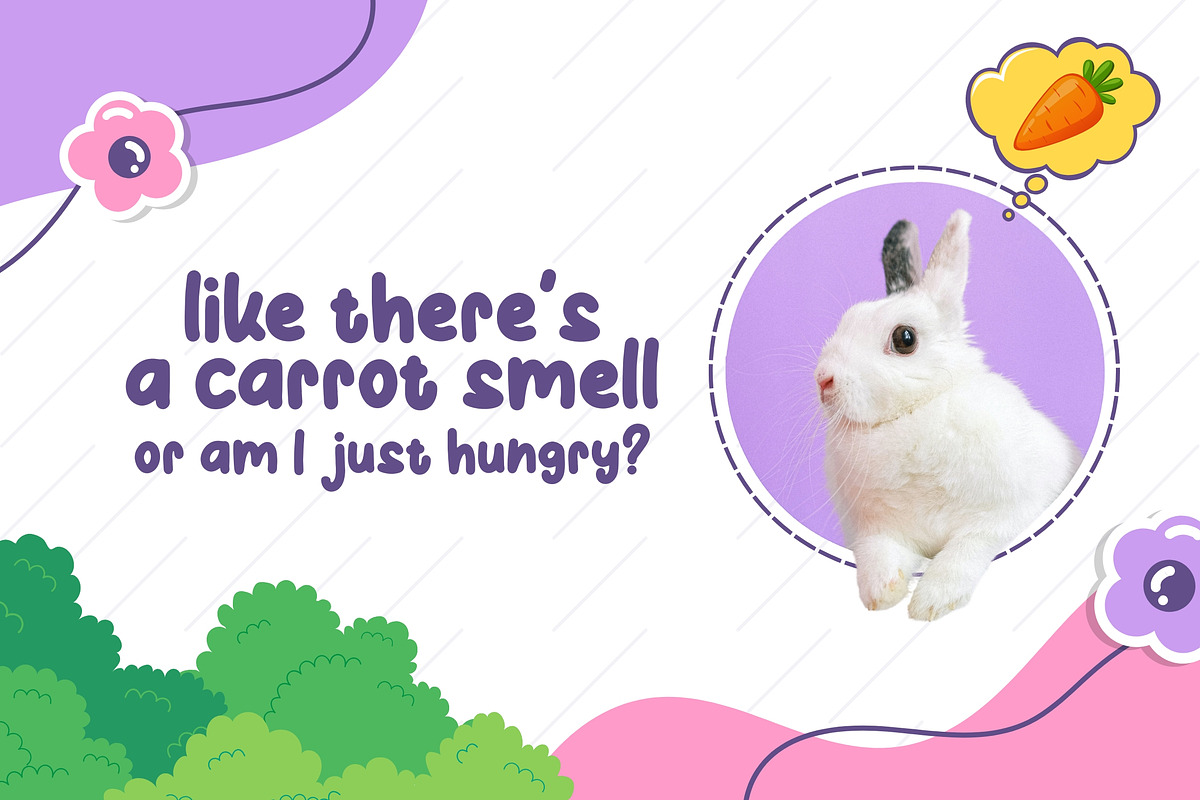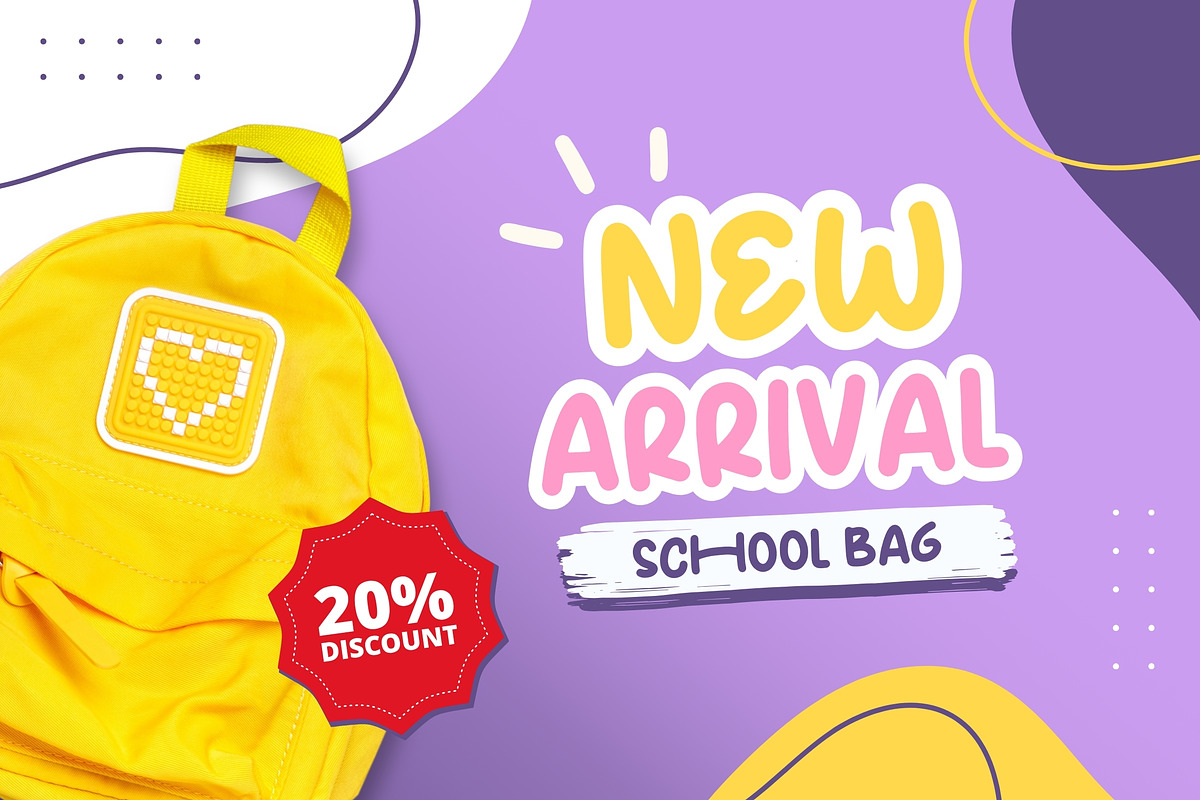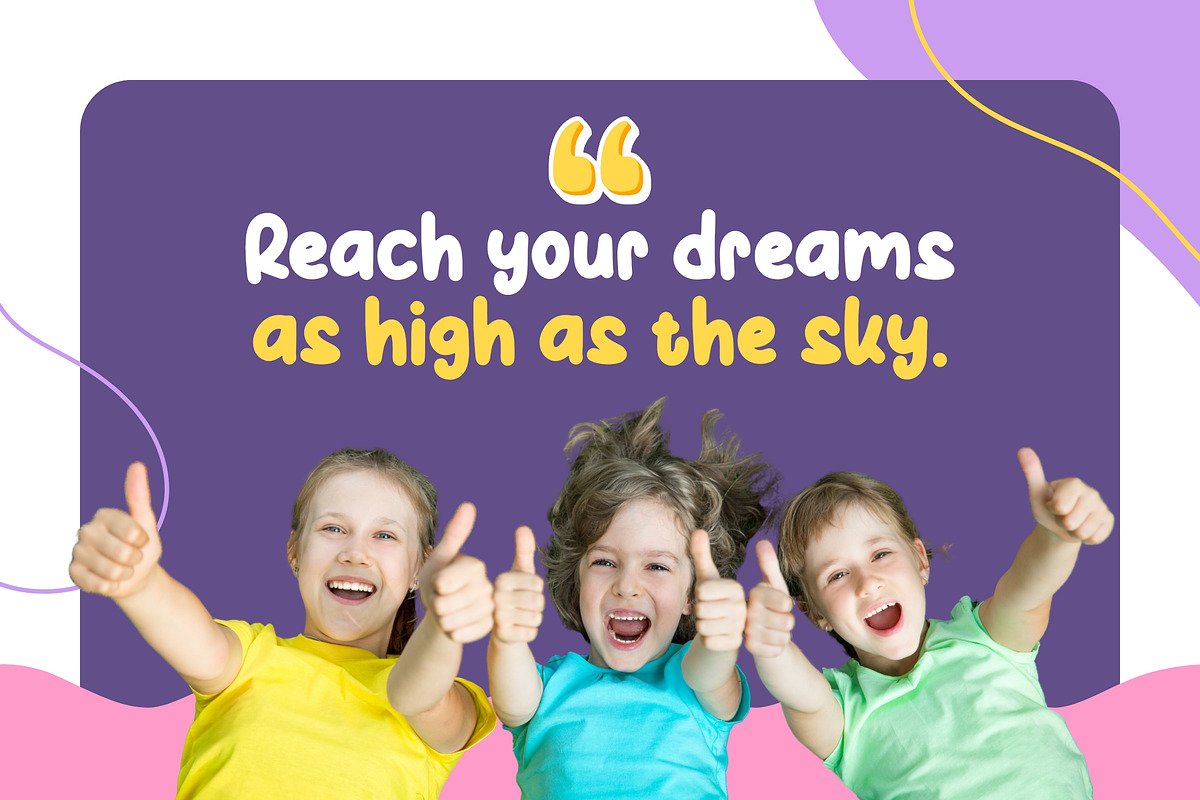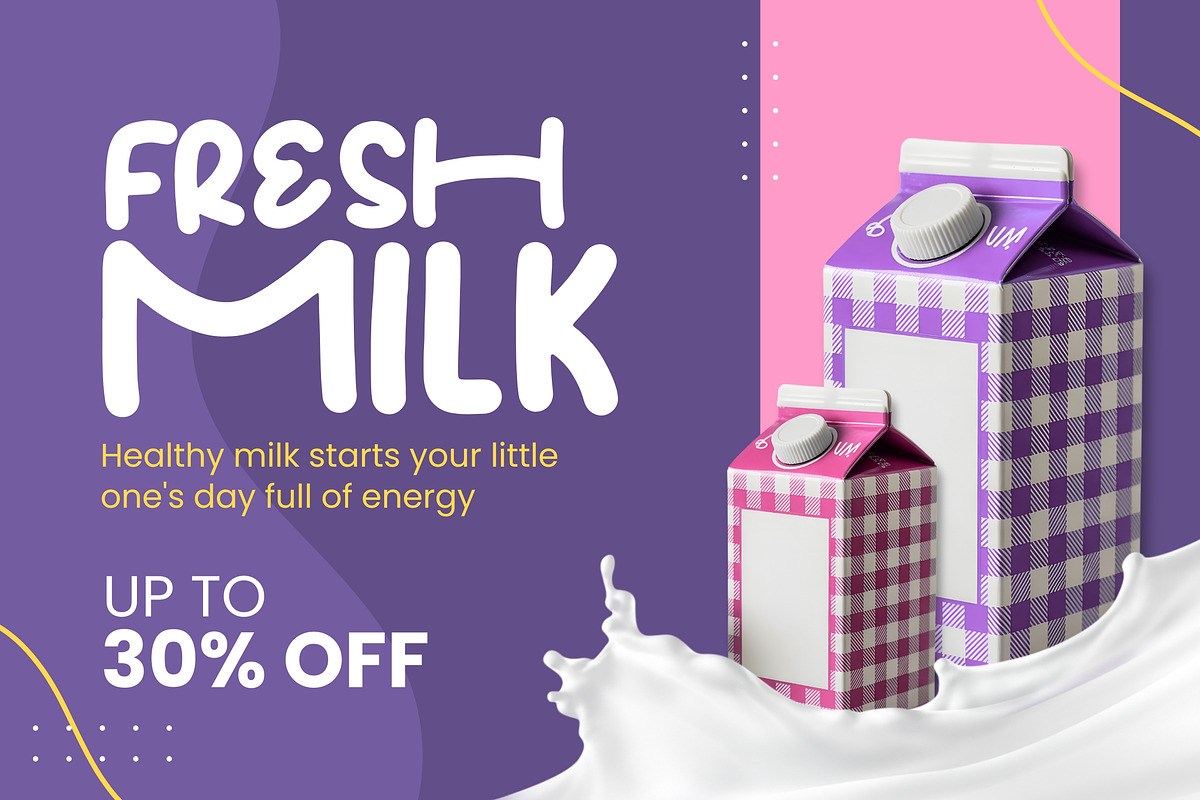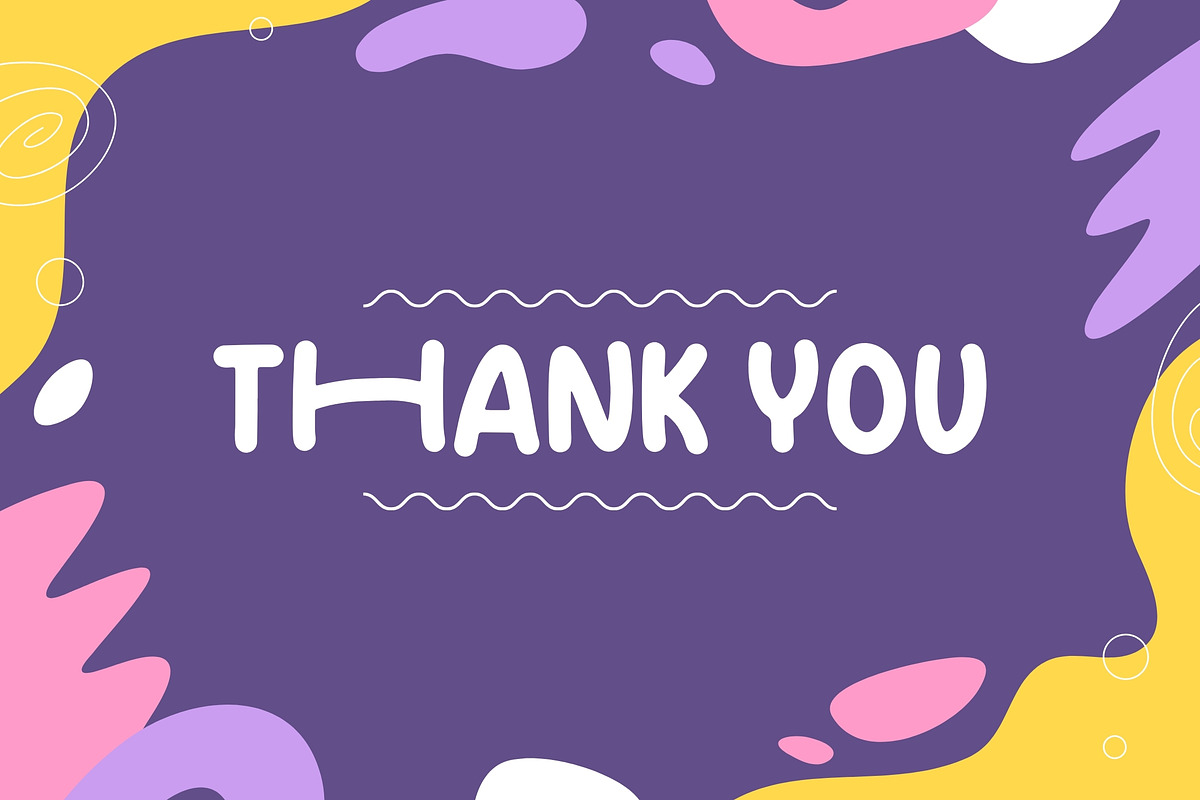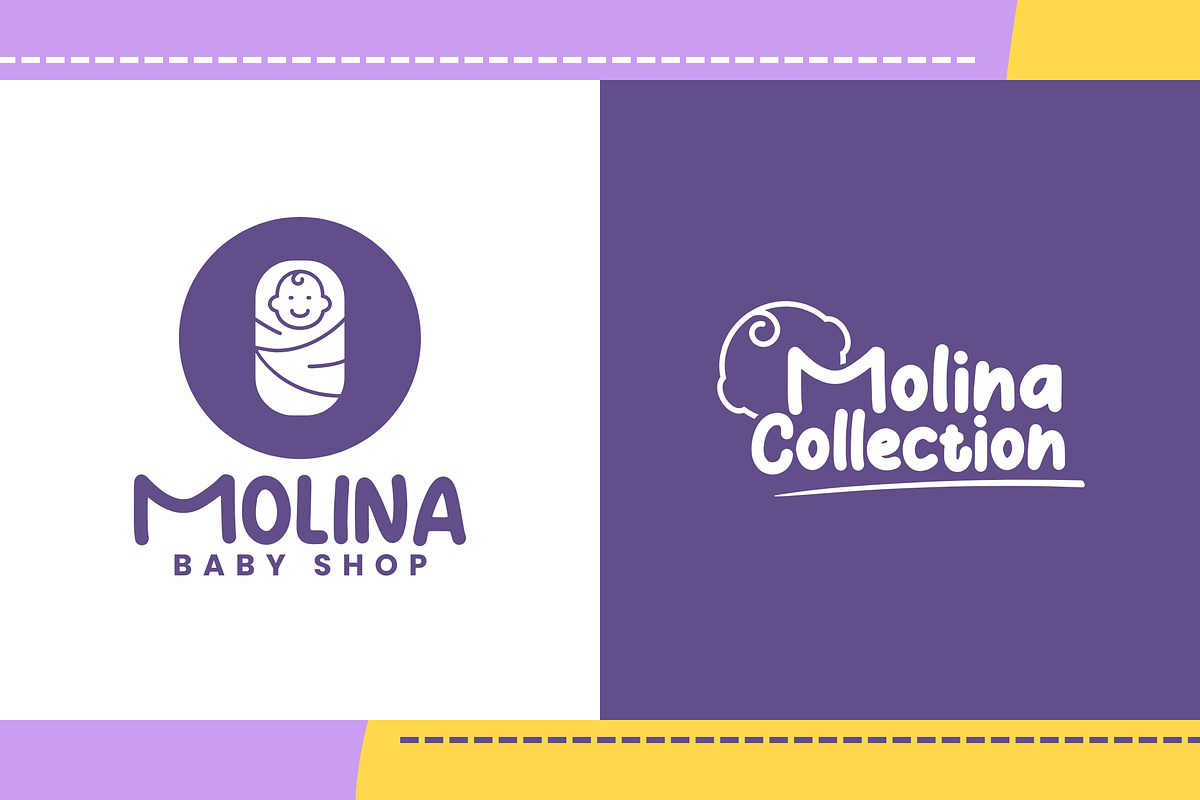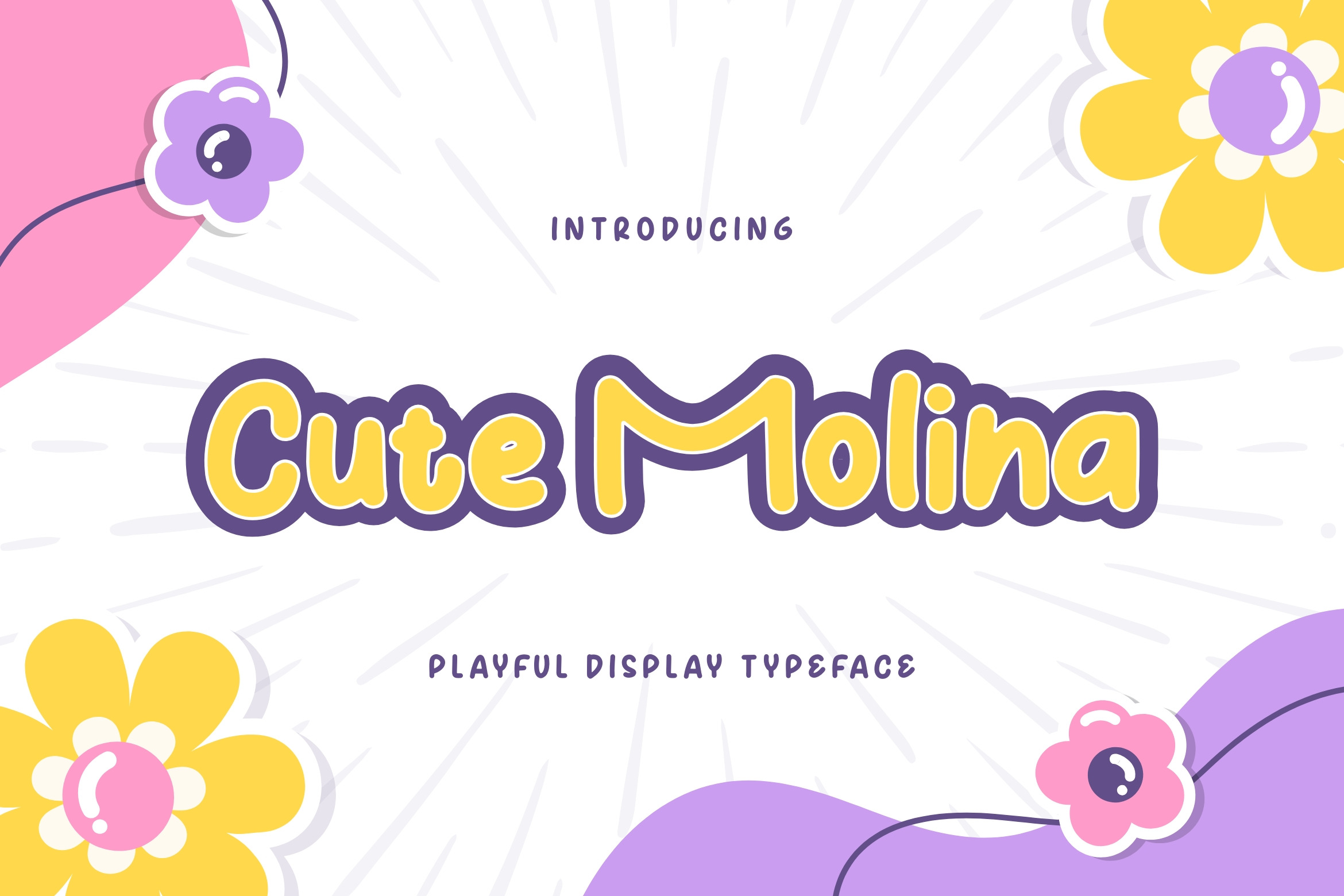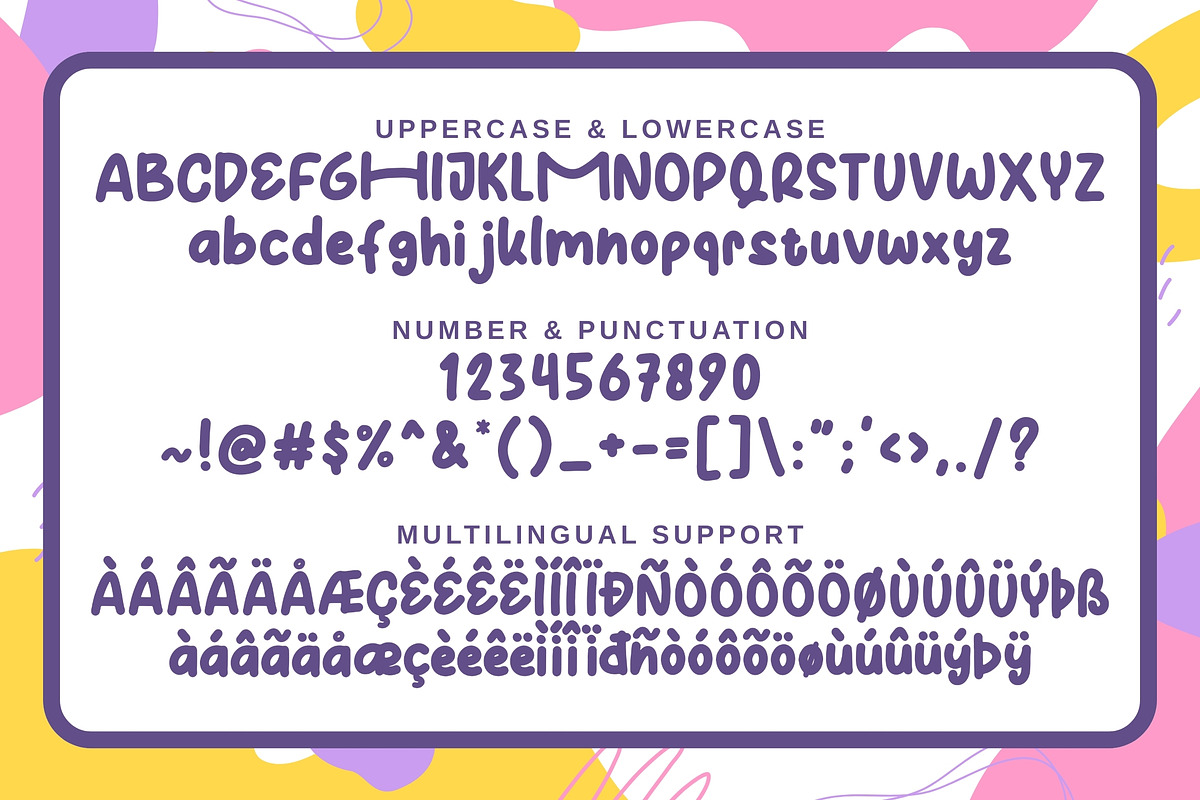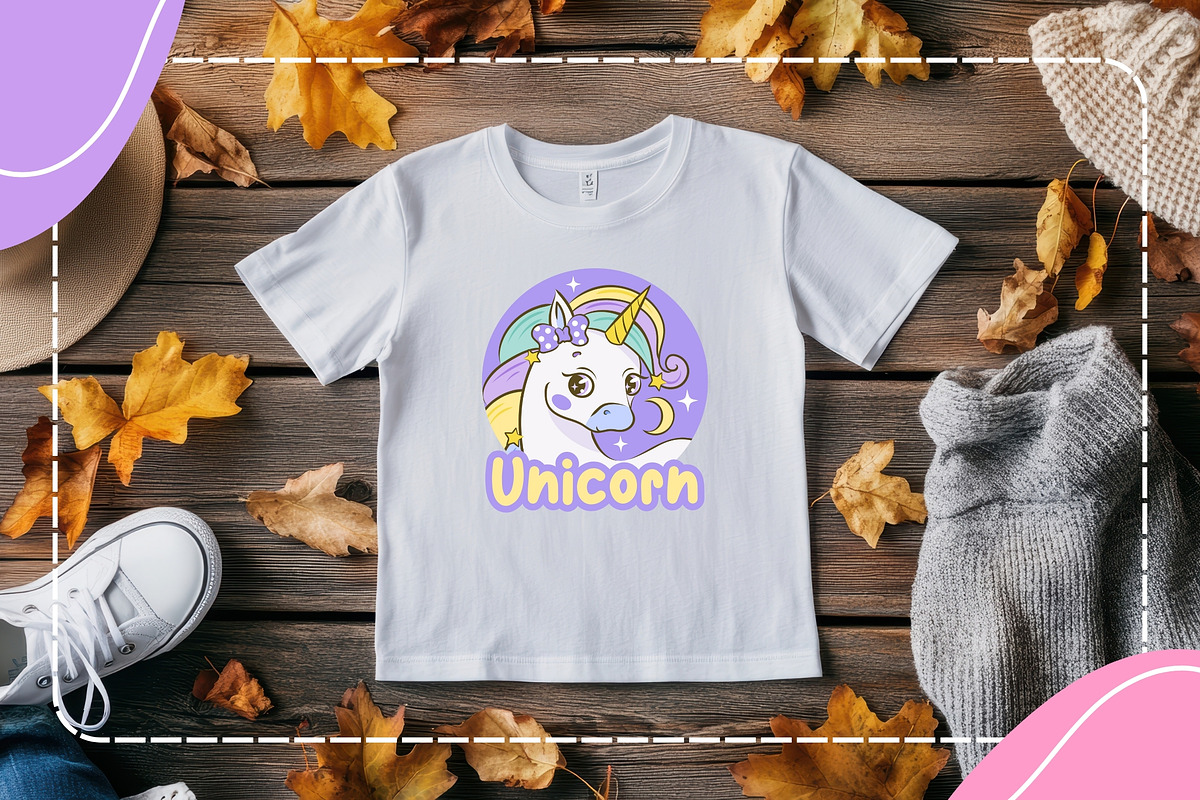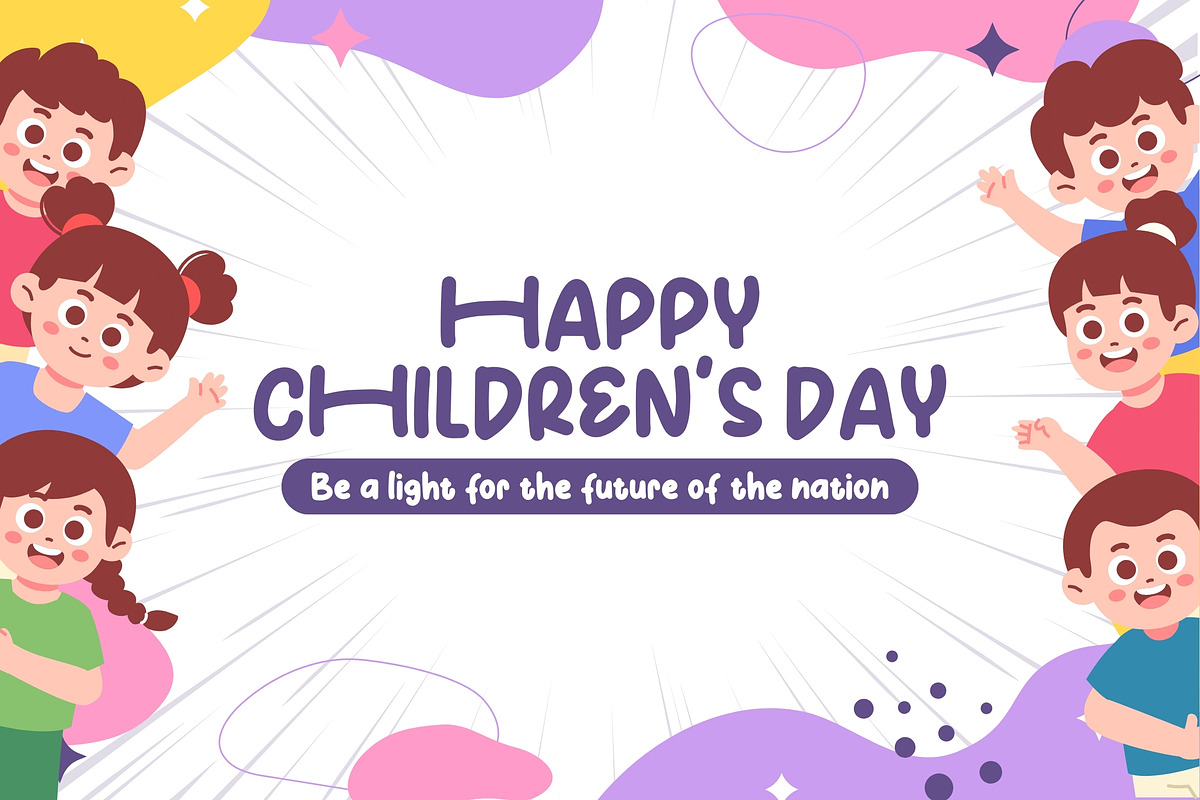
Cute Molina – Soft & Cozy Font
Cute Molina is a soft and cozy rounded font created to bring a warm, friendly, and comforting feel to children-focused designs. With its smooth curves, balanced thickness, and gentle personality, this font feels welcoming and easy on the eyes.
Cute Molina is perfect for projects that want to look cute, calm, and lovable, making it especially suitable for kids content, family-oriented designs, and soft branding concepts.
- Children’s books and storytelling projects
- Cute and gentle kids branding
- Educational materials with a soft tone
- Posters, titles, and friendly headlines
- Creative designs with a warm & cozy vibe
- Soft, rounded, and playful style
- Multilingual character support
- Kid-friendly and easy to read
- Suitable for print and digital use
Why Choose Cute Molina? Cute Molina helps your designs feel gentle, warm, and emotionally inviting. Its soft letterforms are ideal for designers and brands who want to communicate care, friendliness, and comfort—especially in children’s and family-focused projects.